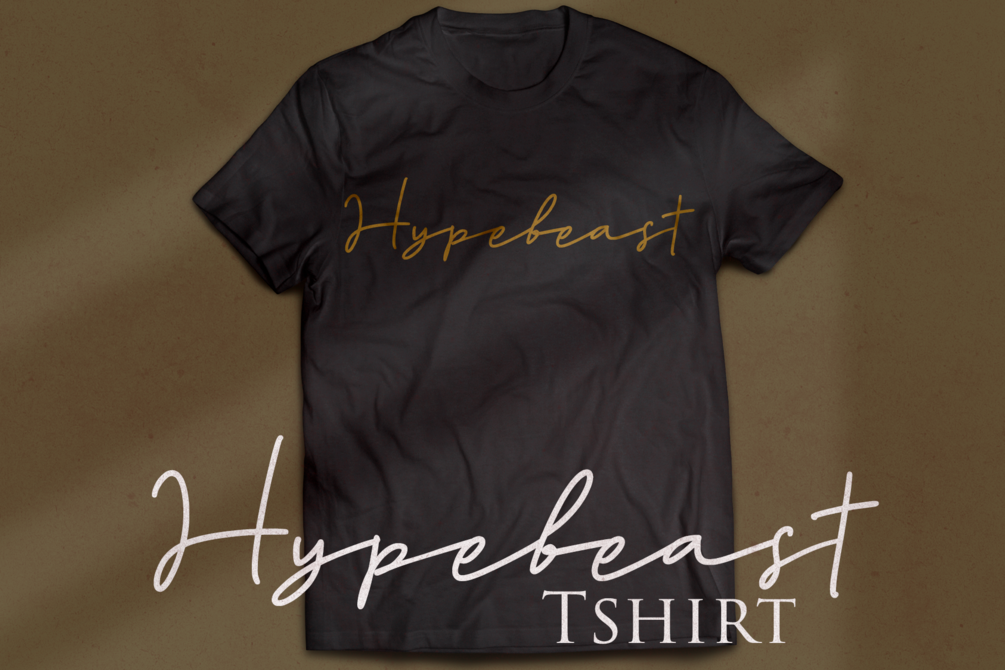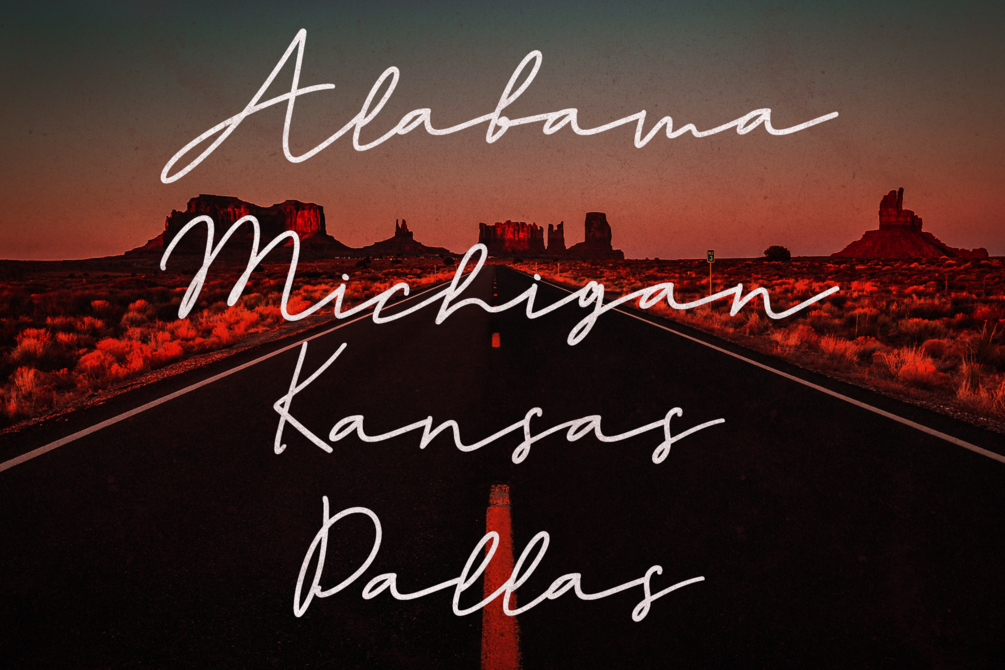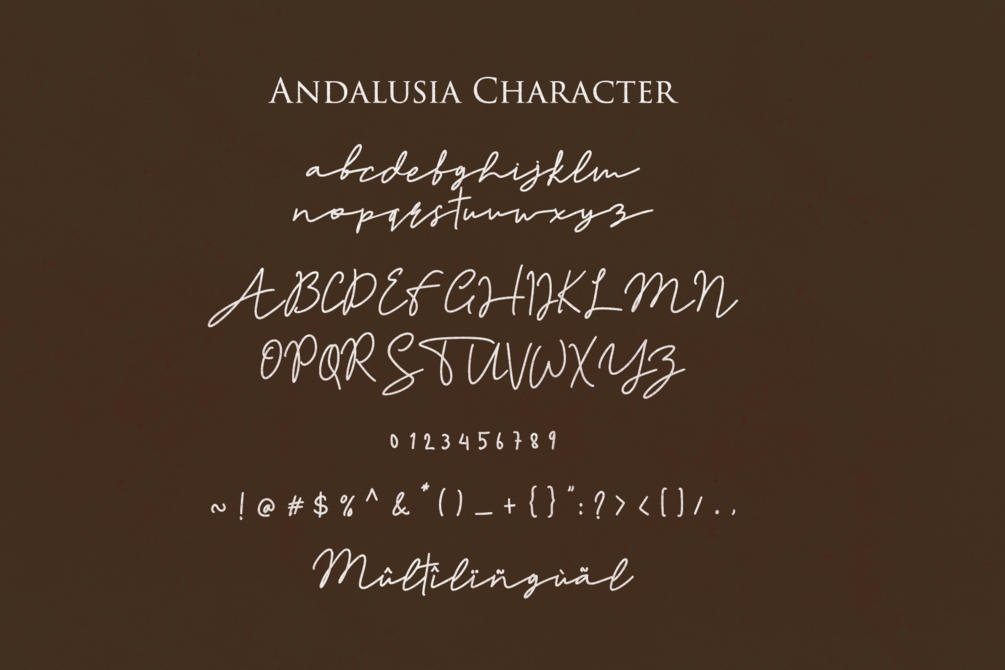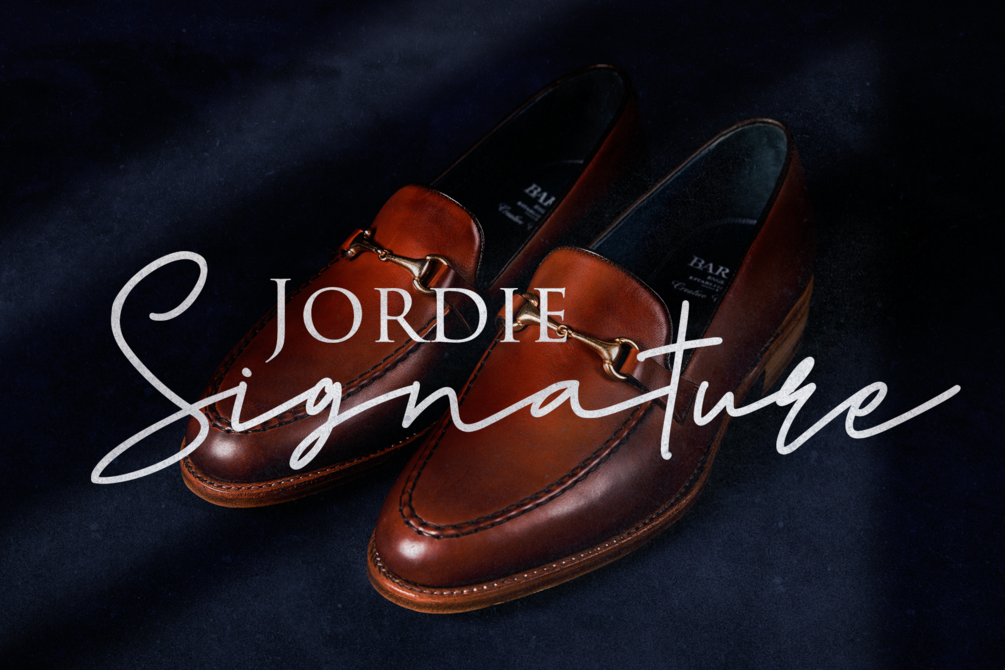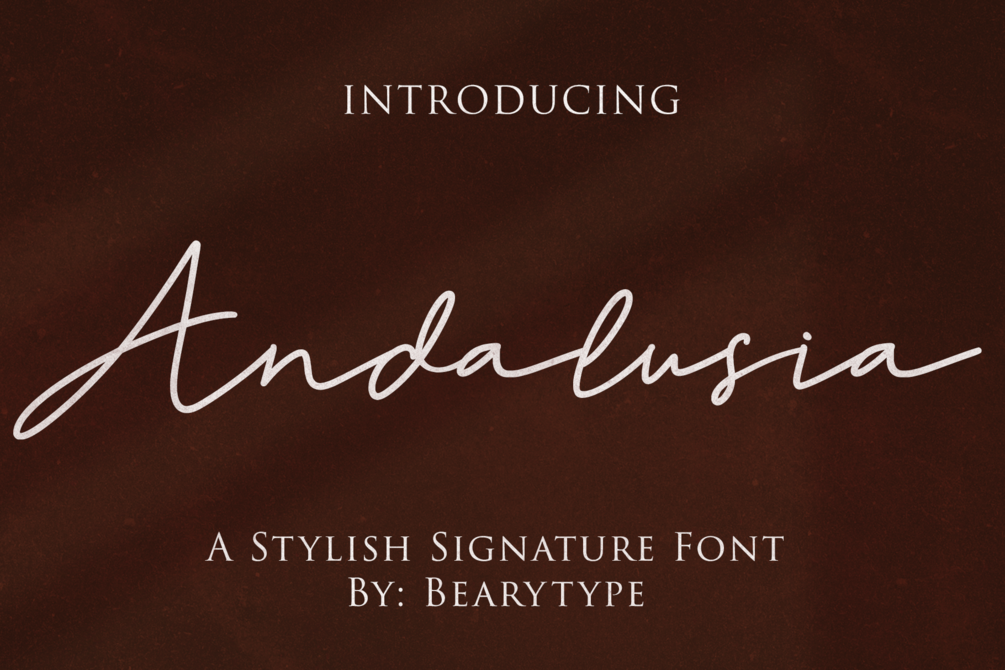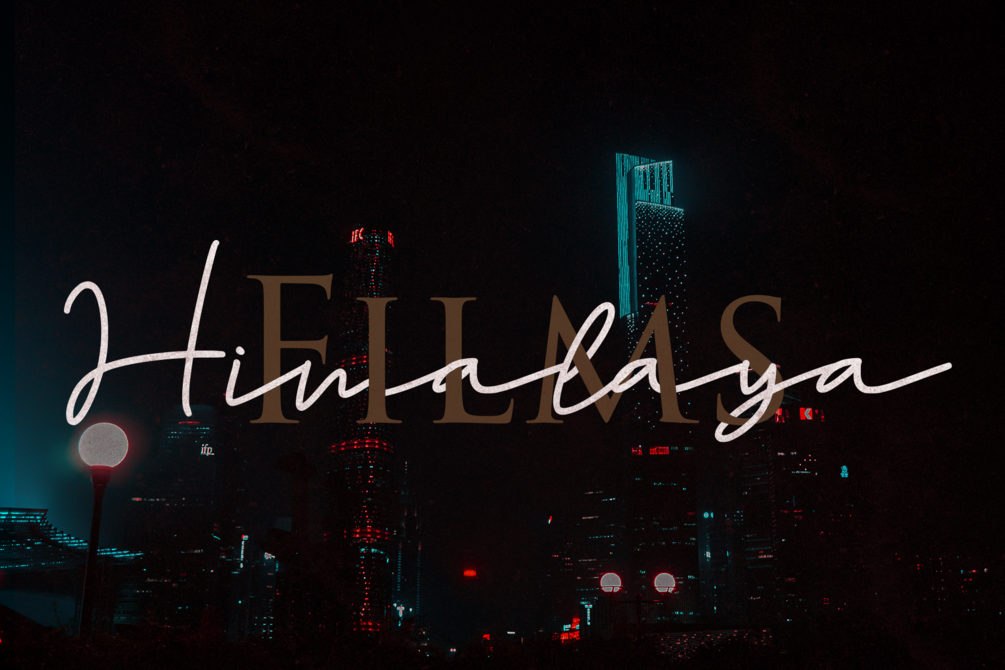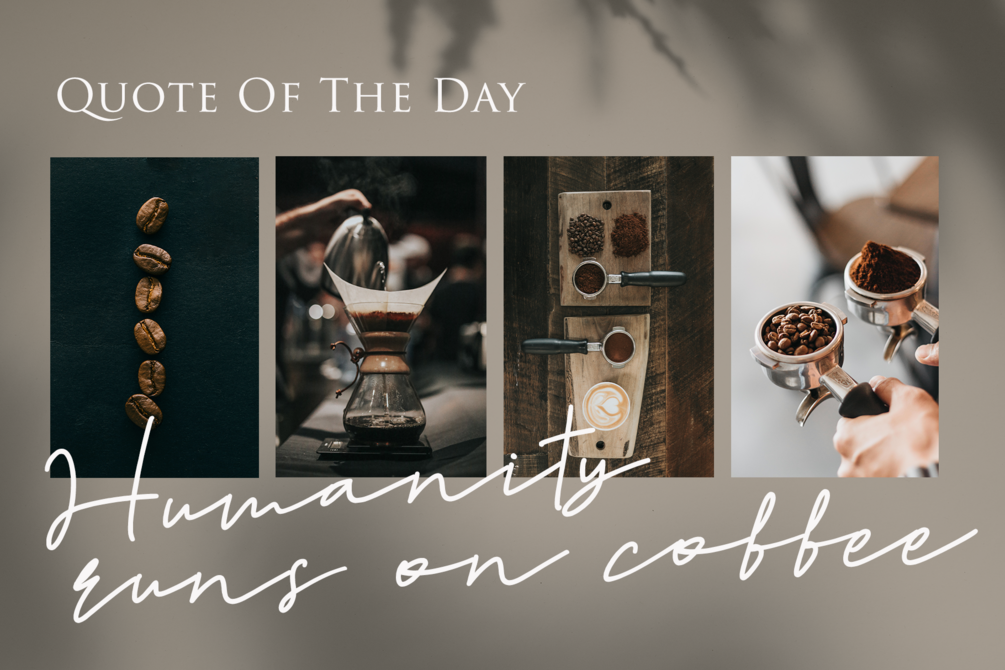
Andalusia Signature Font - Elegant Script
Elevate your designs with Andalusia, an exquisitely crafted signature script font that exudes elegance and romance. Expertly designed, this font features flowing ligatures and delicate swashes that will make your wedding invitations, love-themed projects, and branding look truly exceptional and professional.
Andalusia is PUA encoded, giving you effortless access to all special glyphs and alternates without needing extra design software. It also includes full multilingual support, making it a versatile choice for a global audience.
Key Features:
- Elegant Script Font: A beautiful signature-style typeface perfect for romantic and upscale designs.
- Multilingual Support: Extensive language coverage for wider usability.
- Perfect For: Wedding Invitations, Logos, Branding, Christmas Cards, Posters, Mugs, and Social Media Graphics.